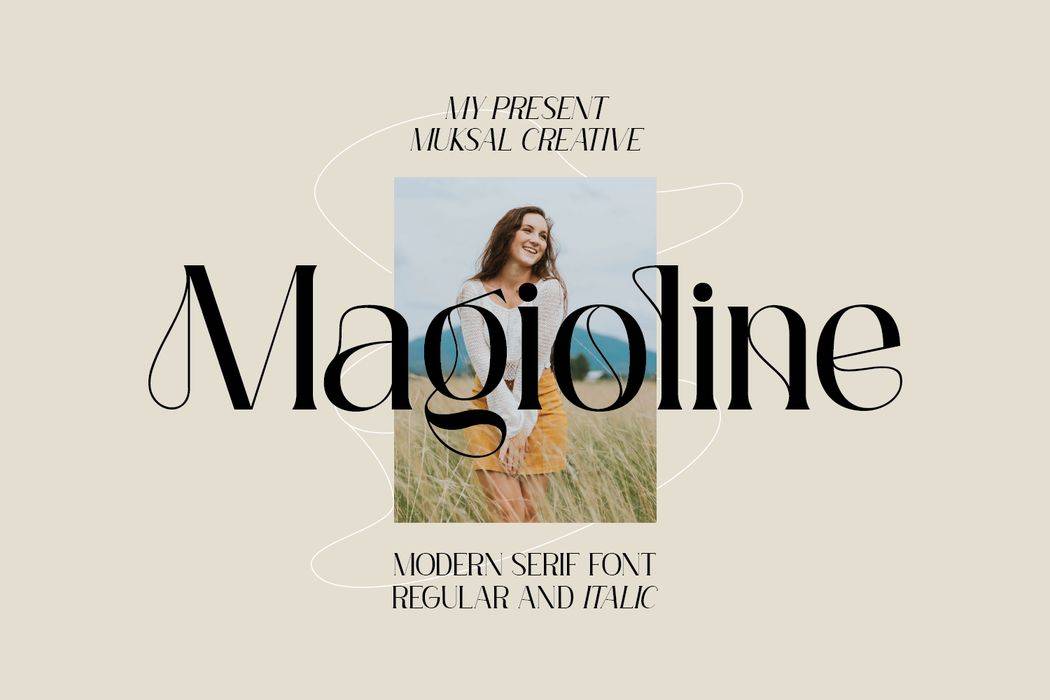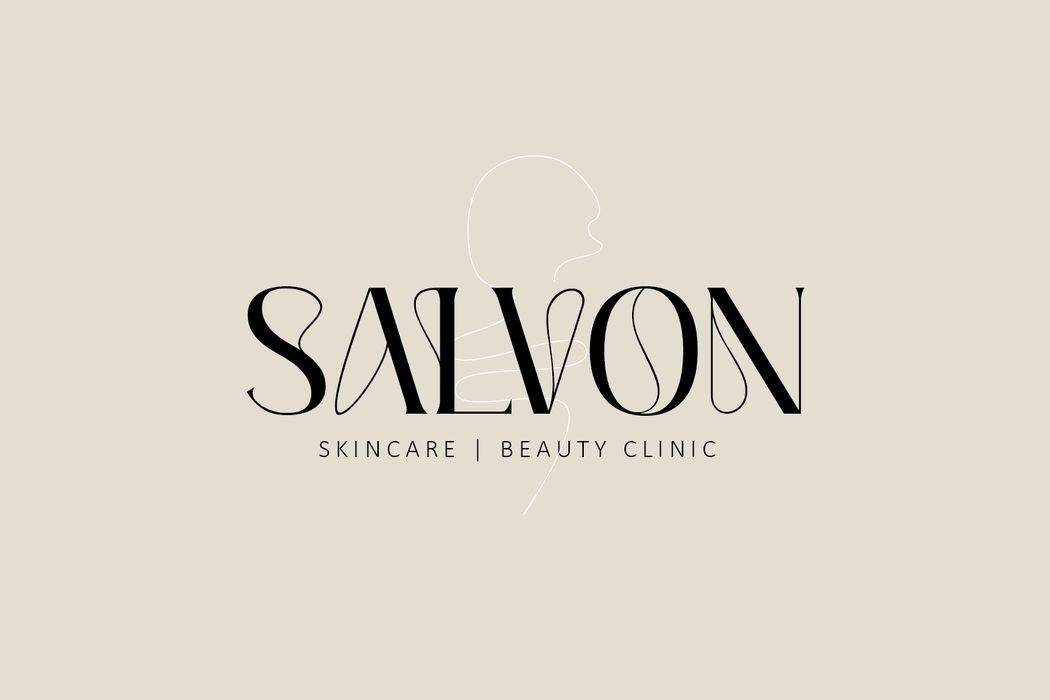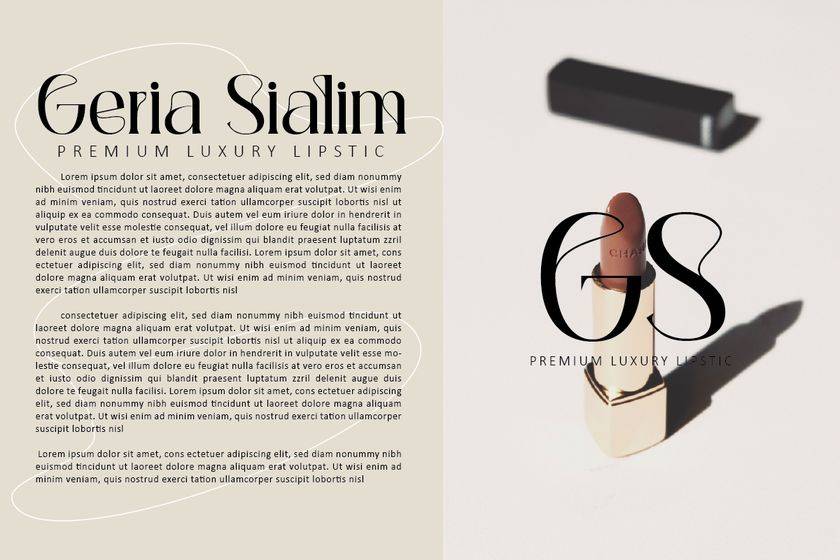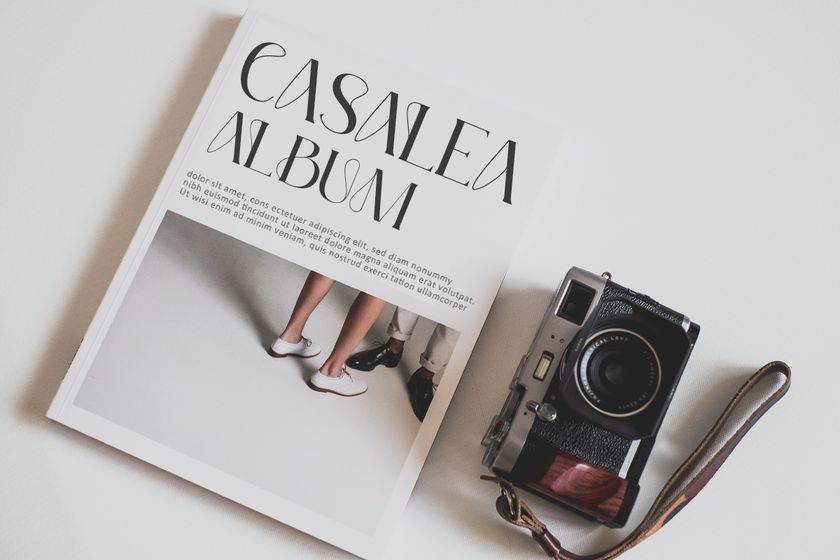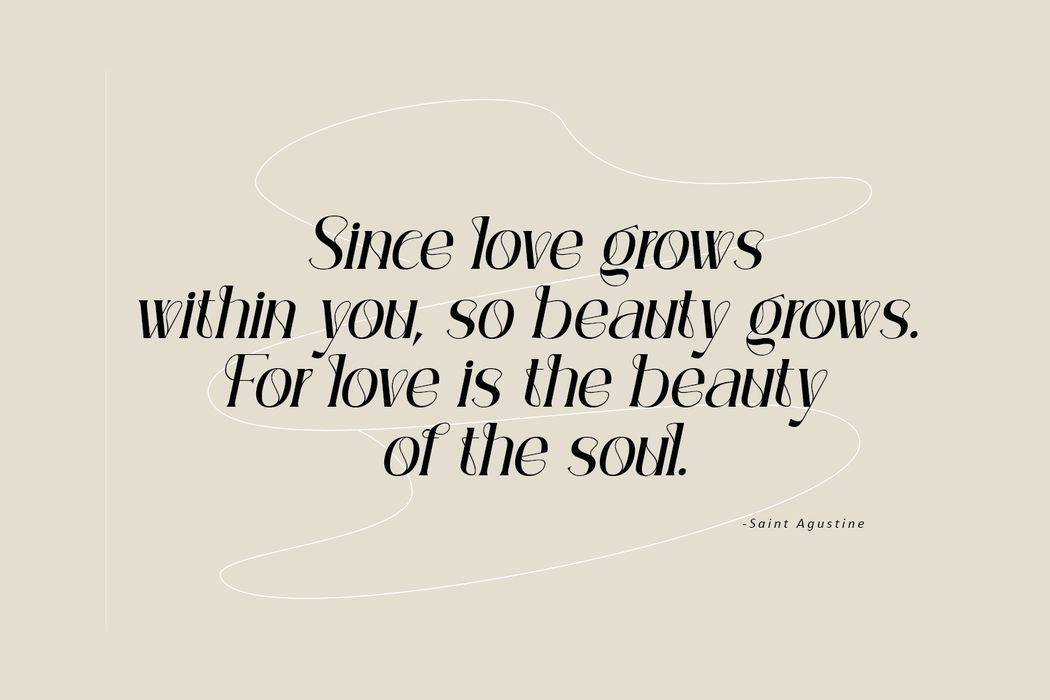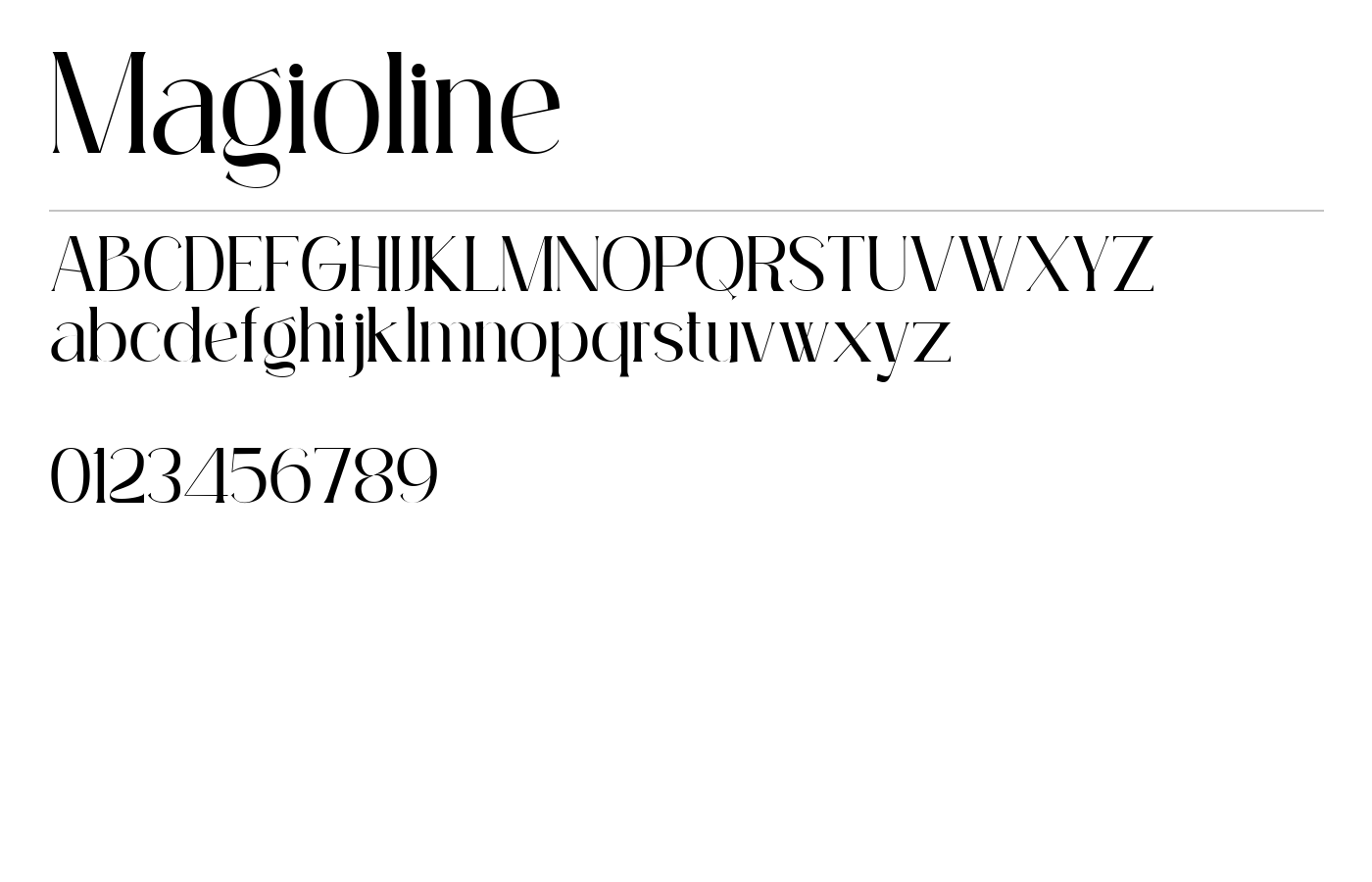
Magioline is an elegant serif font with a modern Didone style, featuring high contrast between thick and thin strokes and slender, delicate serifs. Its tall, narrow letterforms with refined details give it a sophisticated and luxurious feel, making it ideal for upscale branding, fashion editorials, and stylish headlines where a sense of grace and exclusivity is desired. This font’s refined appearance works beautifully in contexts that require a blend of classic charm and contemporary sharpness.
Magioline Font
About Magioline Font
| Font family | Magioline Font |
| Designer | Muksal Creative |